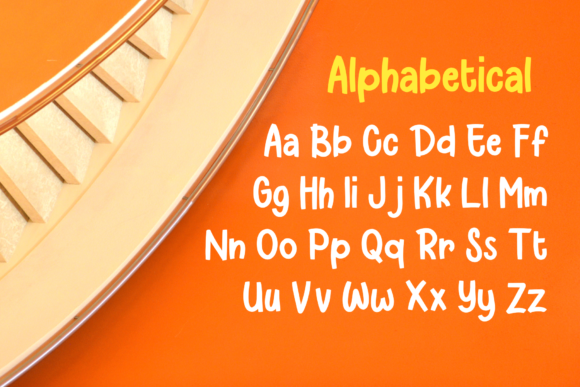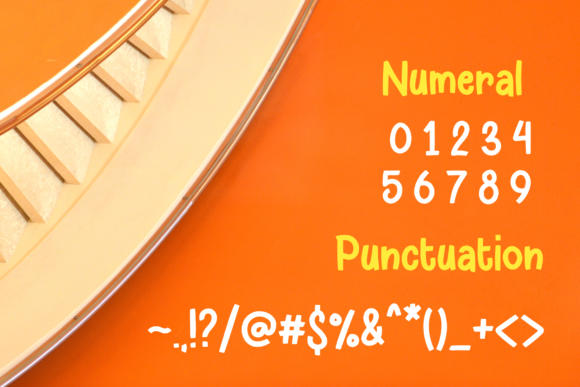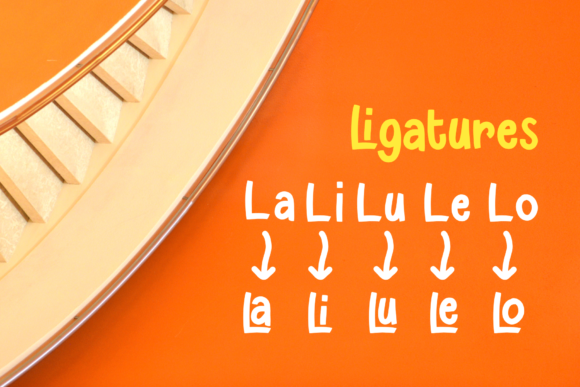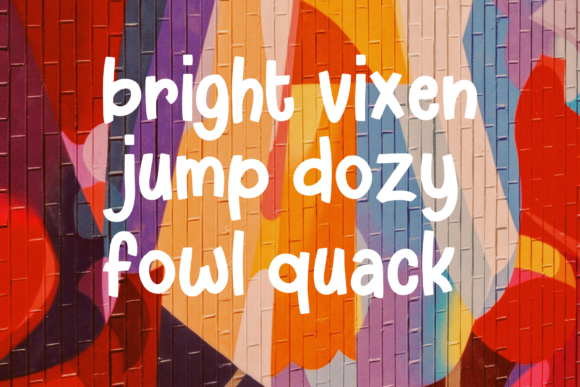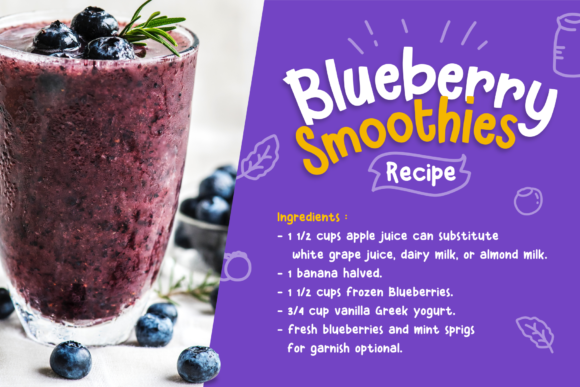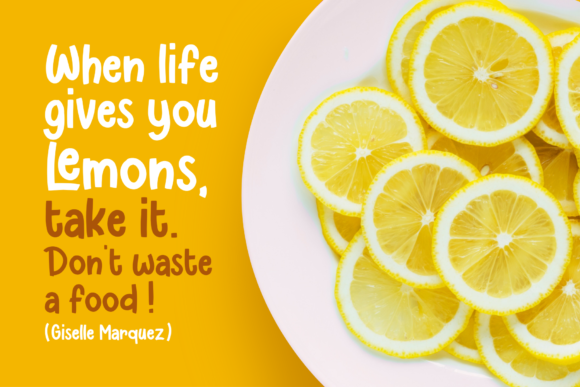
Introduction to Larys Manice Font
The Larys Manice is a bold and fun sans serif font, which will bring joy and happiness to all of your designs.
It was inspired by handlettering, was made with a marker pen, and has a bold and strong style It’s ideal for displays, texts, prints, branding, signage, and includes a set of optimal characters for your design in any layout.